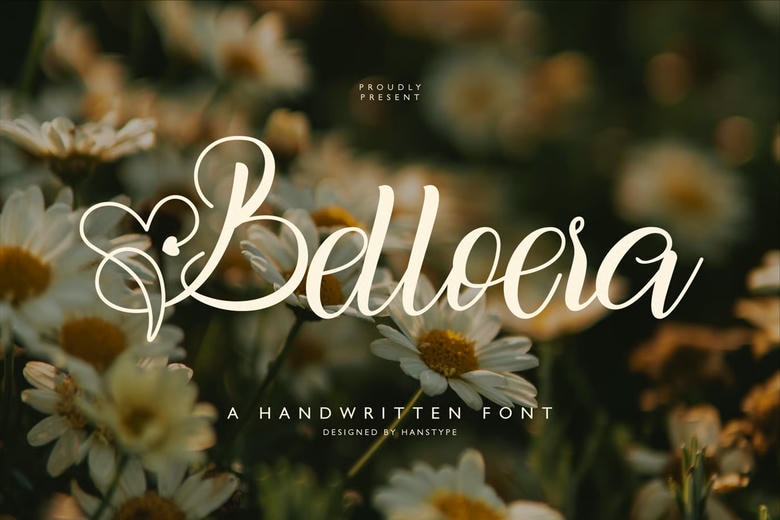
Belloera Font
Belloera Handwritten Font is a perfect and sophisticated script font that has the ability to project classical looks and beauty. Its soft, flowing lines and elegant types bring about an air of luxury and can be used to do upscale branding, invitations and high-end design work.
Belloera Handwritten Script Font